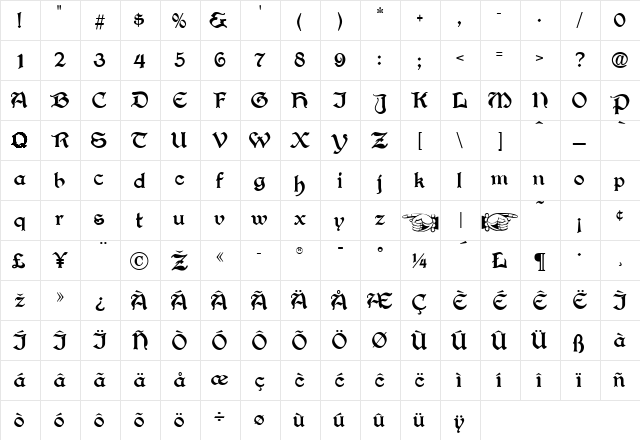
AcademyText Regular
| Foundry | Digitized by Dan X. Solo. Software \ by Dover Publications, Inc |
Design Context for AcademyText Typeface
AcademyText is a composed and adaptable typeface that performs quietly and consistently across a wide range of design contexts.